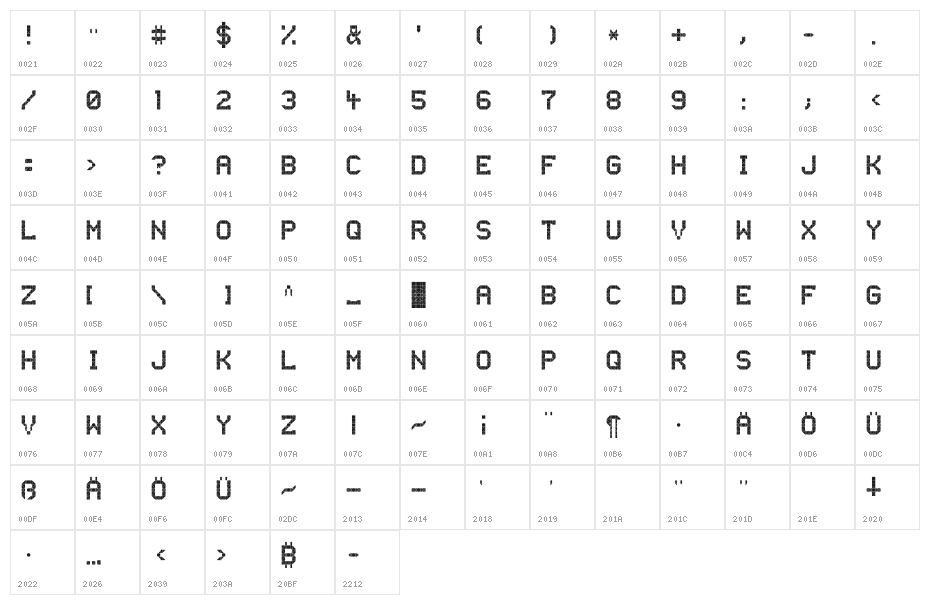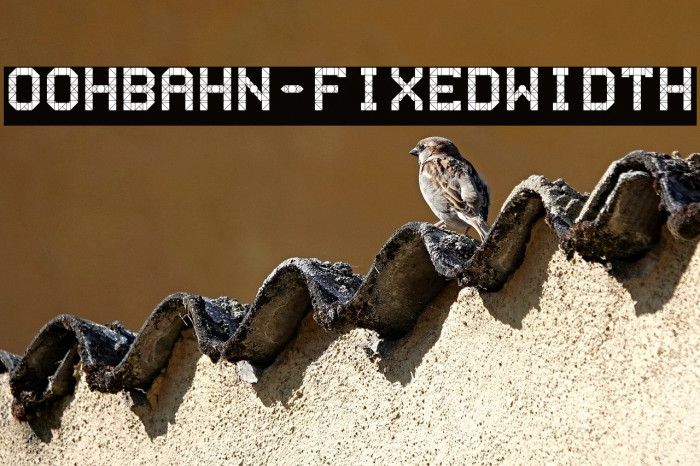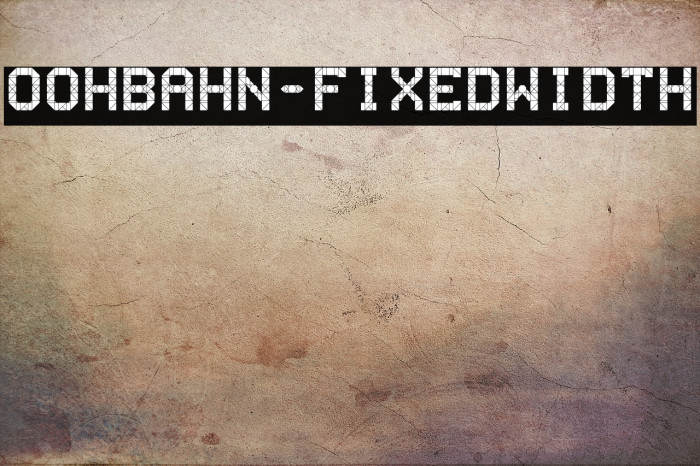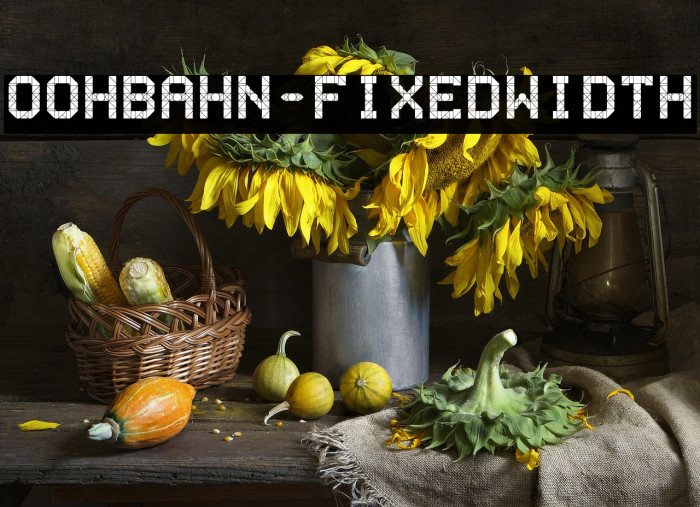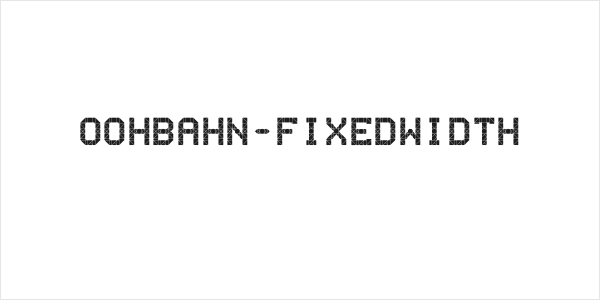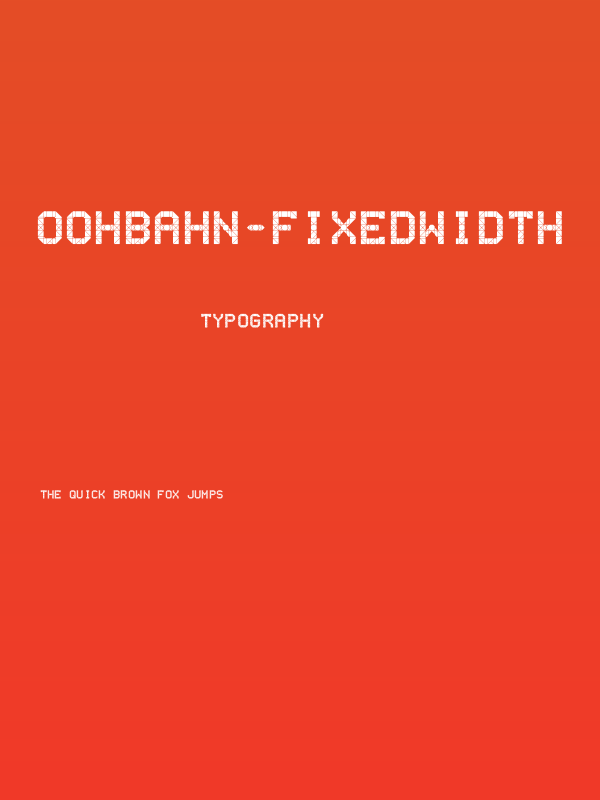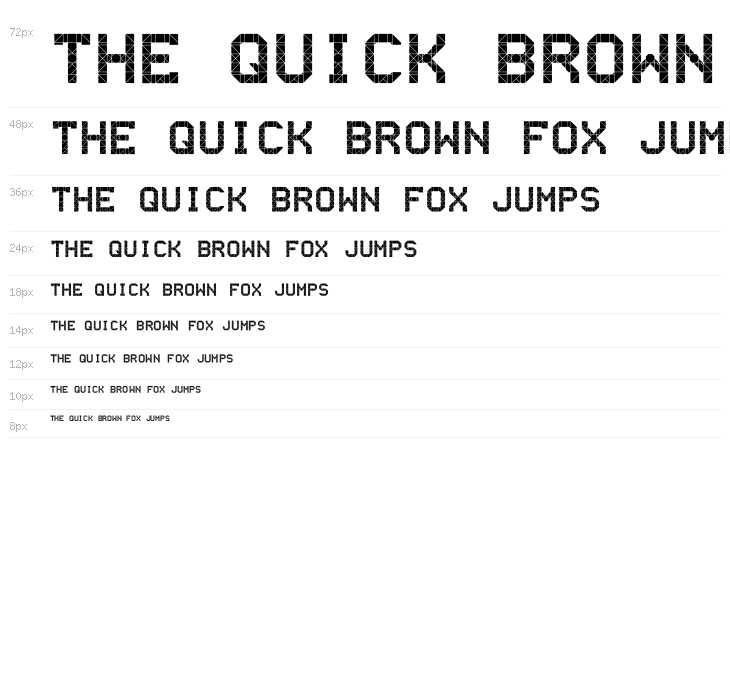
OohBahn-FixedWidth Font
OohBahn-FixedWidth Description
This font features a unique geometric design with a fixed width, creating a distinct and modern appearance. Each character is composed of a series of triangular shapes that form a mosaic-like pattern, giving it a textured and intricate look. The uppercase and lowercase letters maintain consistent proportions, ensuring uniformity across the typeface. The numerals and special characters follow the same design principles, making the font versatile for various applications. Its bold and structured form makes it stand out, while the geometric elements add a decorative touch. This font is ideal for projects that require a contemporary and artistic flair.
| Proposed Projects | Ideal for digital art projects, modern branding, tech-related designs, and creative posters. |